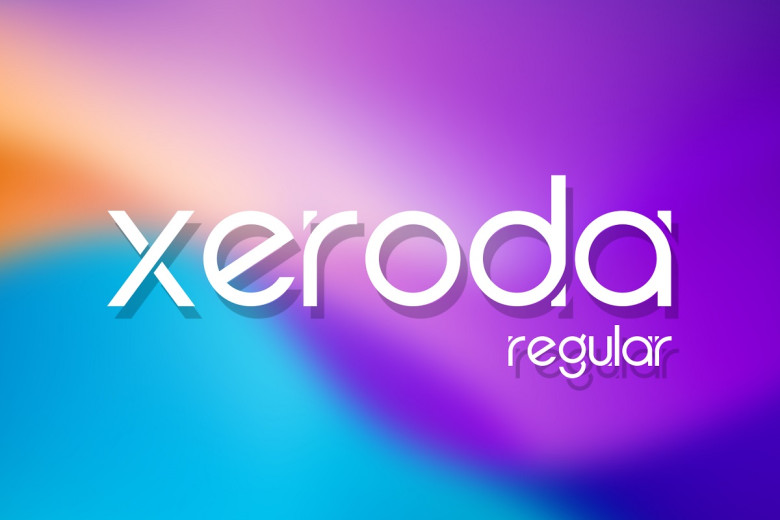
Xeroda Font
Xeroda Regular font is a modern and adaptable font designed to seamlessly combine modern style with classic sophistication. Crafted to draw the eye and leave an enduring impression across various designs, its symmetrical proportions and fine details lend elegance to each letterform of this typeface.
Xeroda Sans Serif Font